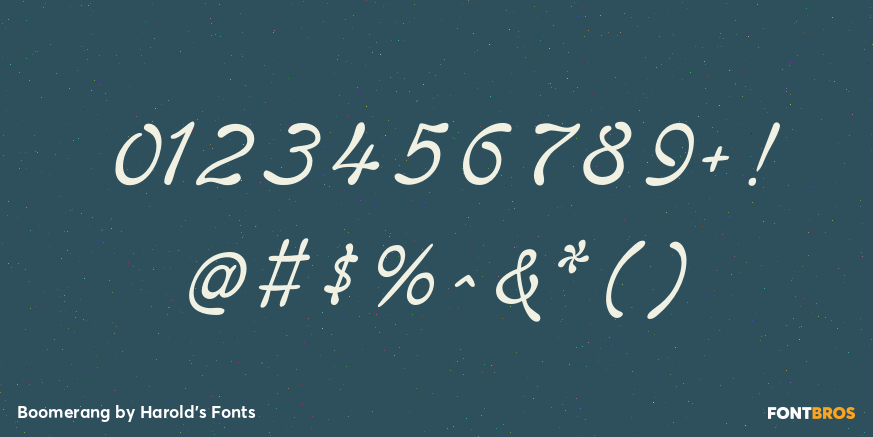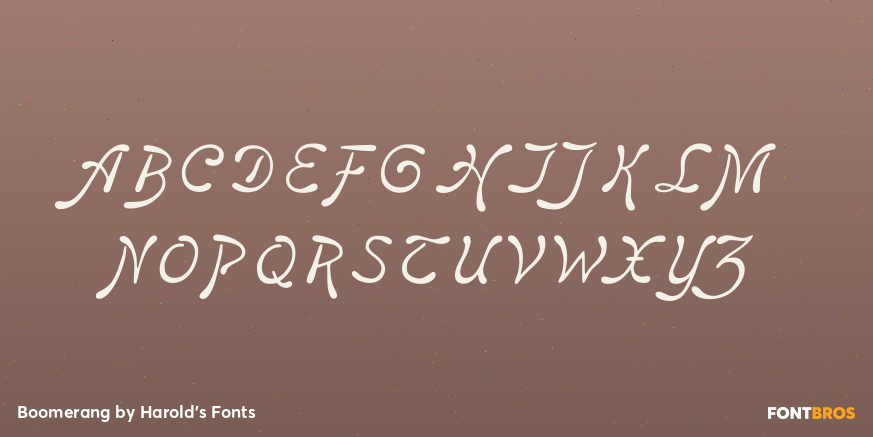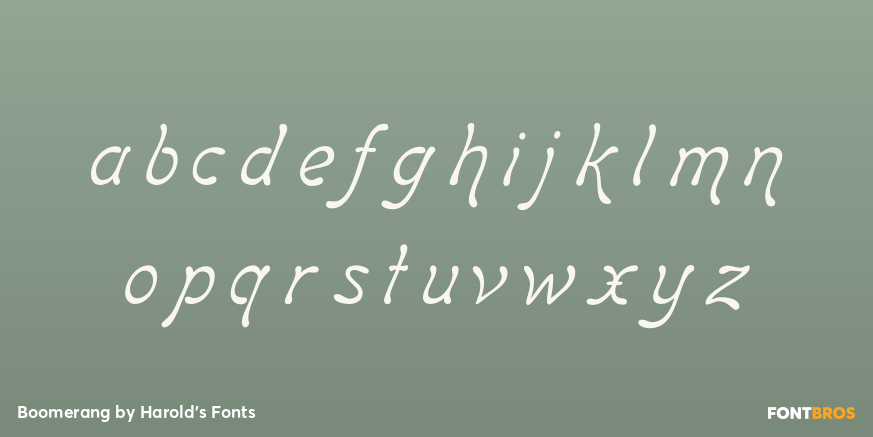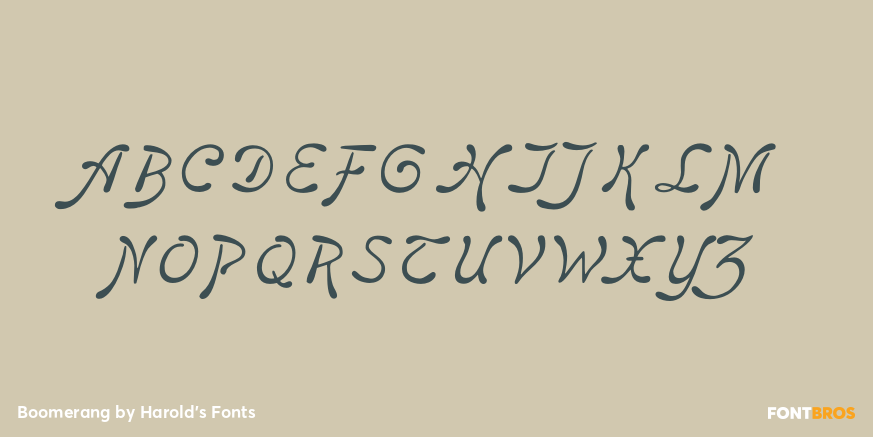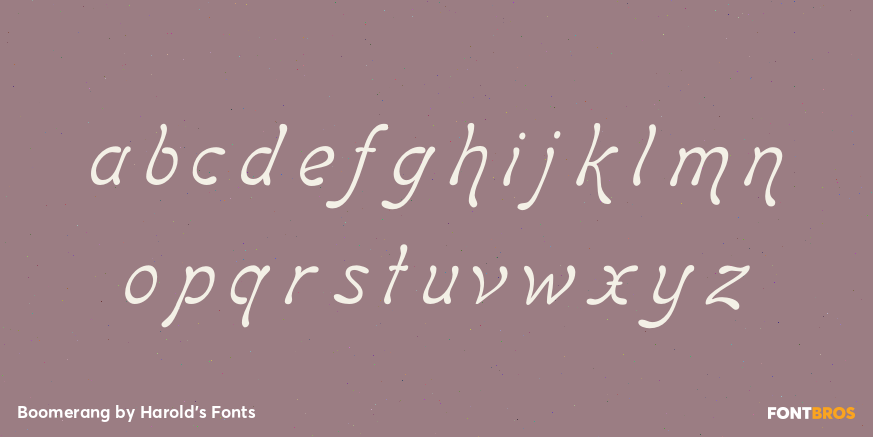
Boomerang
Font Family by Harold's Fonts
The Boomerang font, Regular and Italic, were inspired by a pair of Art Nouveau font. These graceful fonts were among my first creations. They have returned from retirement, refreshed and ready, free for personal use.